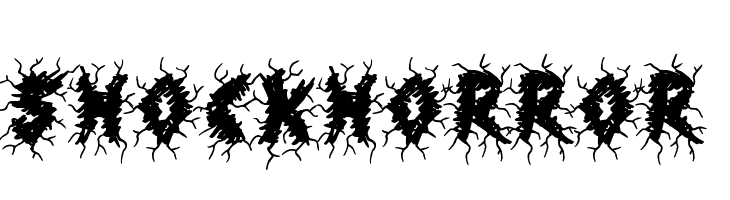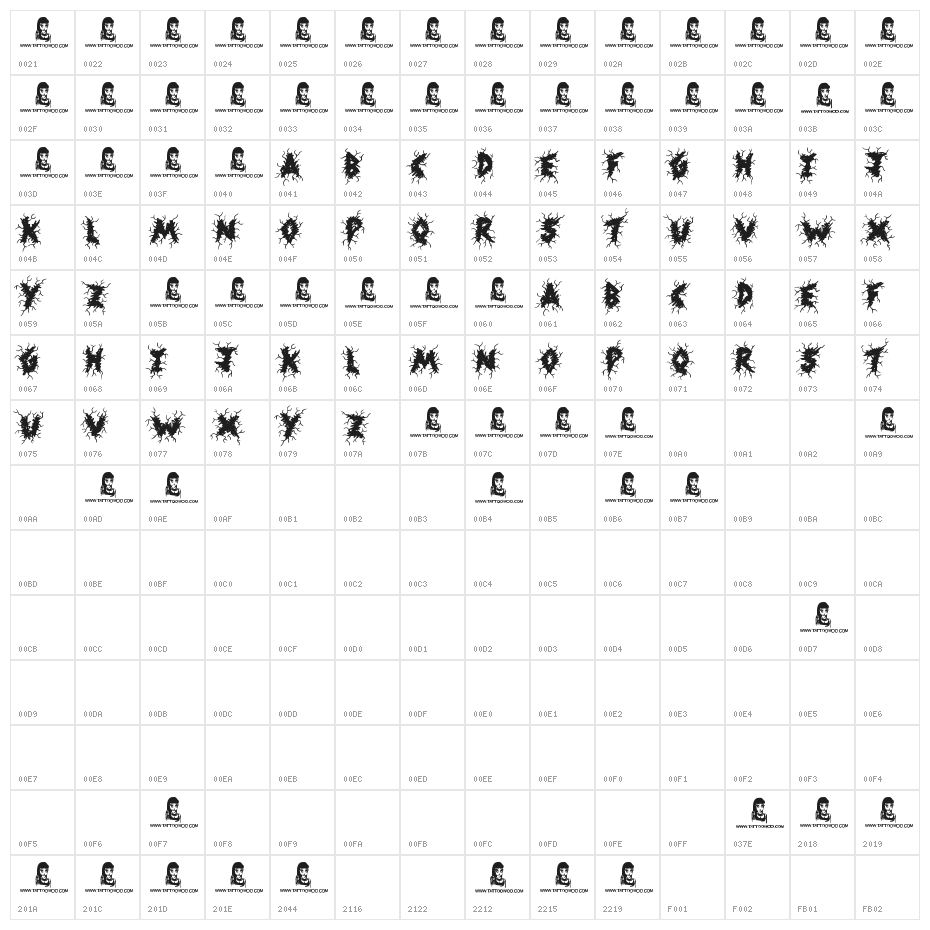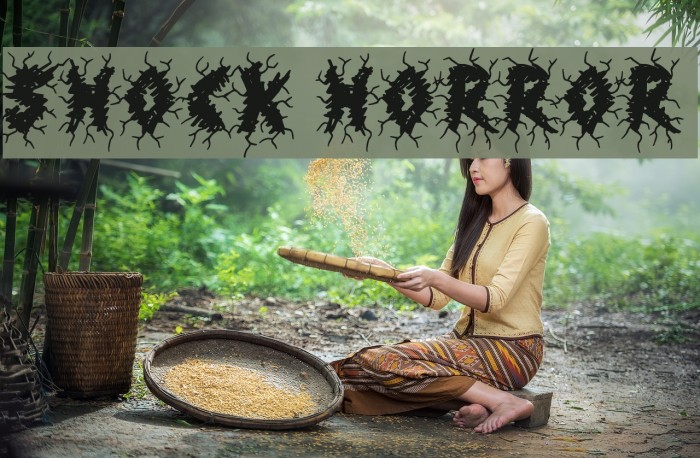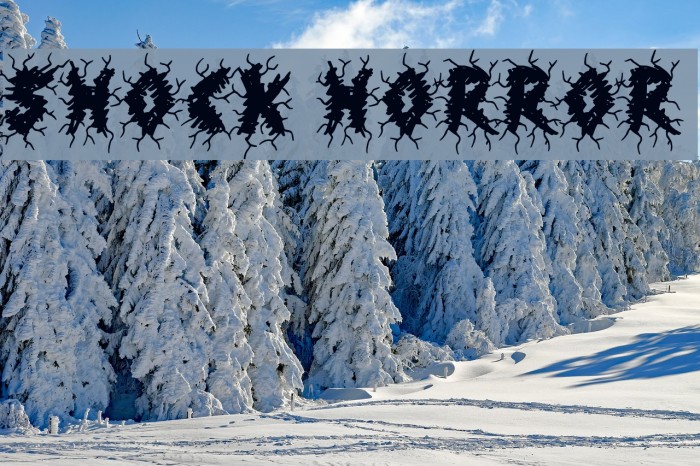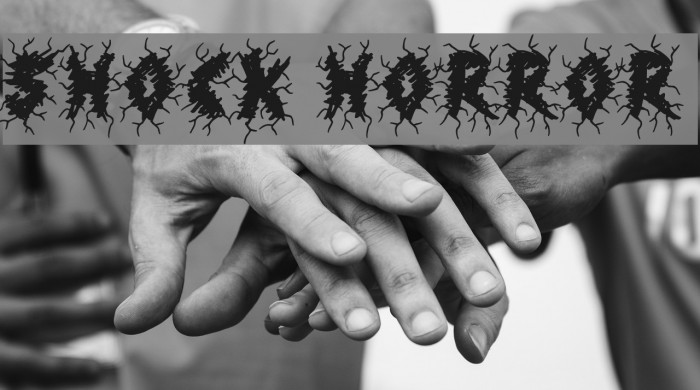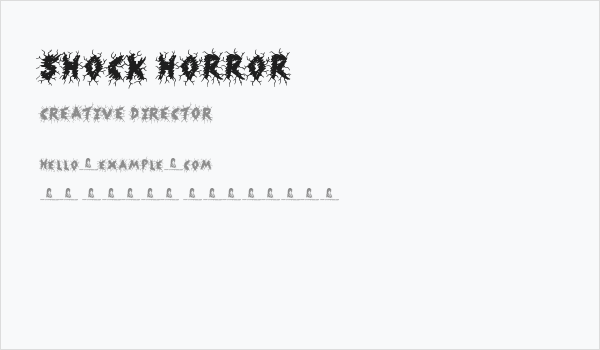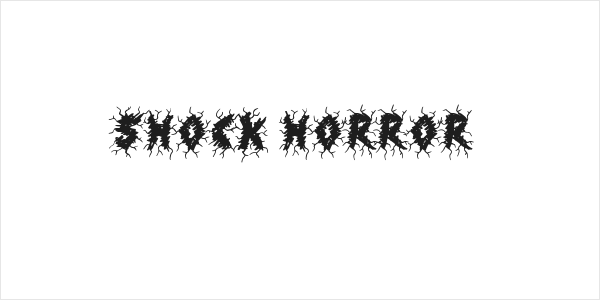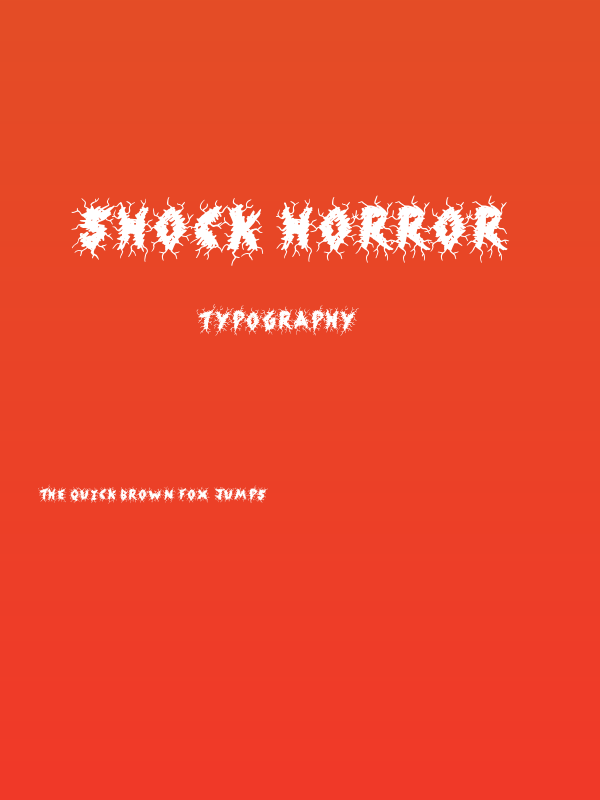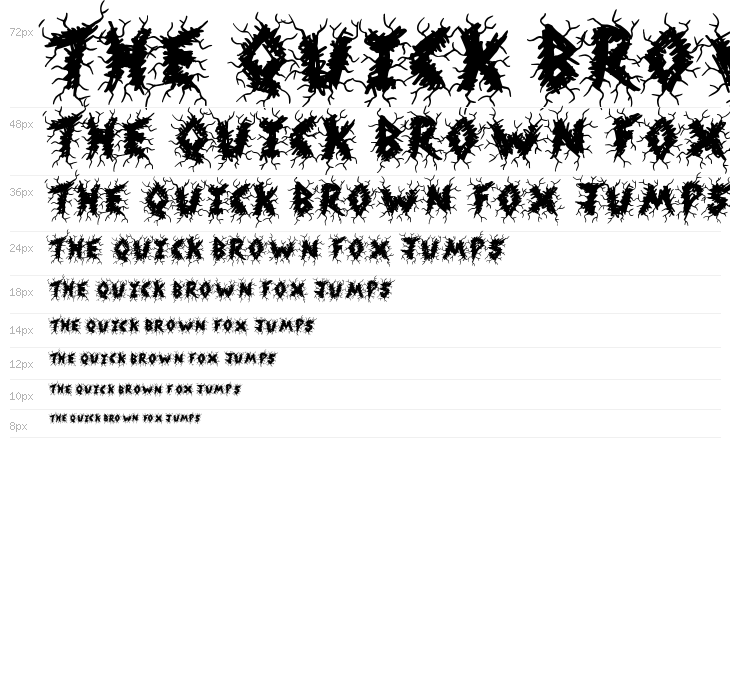
Shock Horror Font
Shock Horror Description
This font features a highly decorative and chaotic style, with letters that appear to be entangled in thorny, jagged branches. The design is bold and striking, with each character exhibiting a unique, organic form that suggests a sense of horror or shock. The intricate detailing and sharp edges create a visually intense experience, making it suitable for themes that require a dramatic and unsettling aesthetic. The font's distinctiveness lies in its ability to convey a sense of unease and tension, making it ideal for horror-themed projects or designs that aim to evoke a sense of fear and suspense.
| Proposed Projects | Perfect for horror movie posters, Halloween event flyers, haunted house attractions, and any project requiring a dramatic and eerie typeface. |